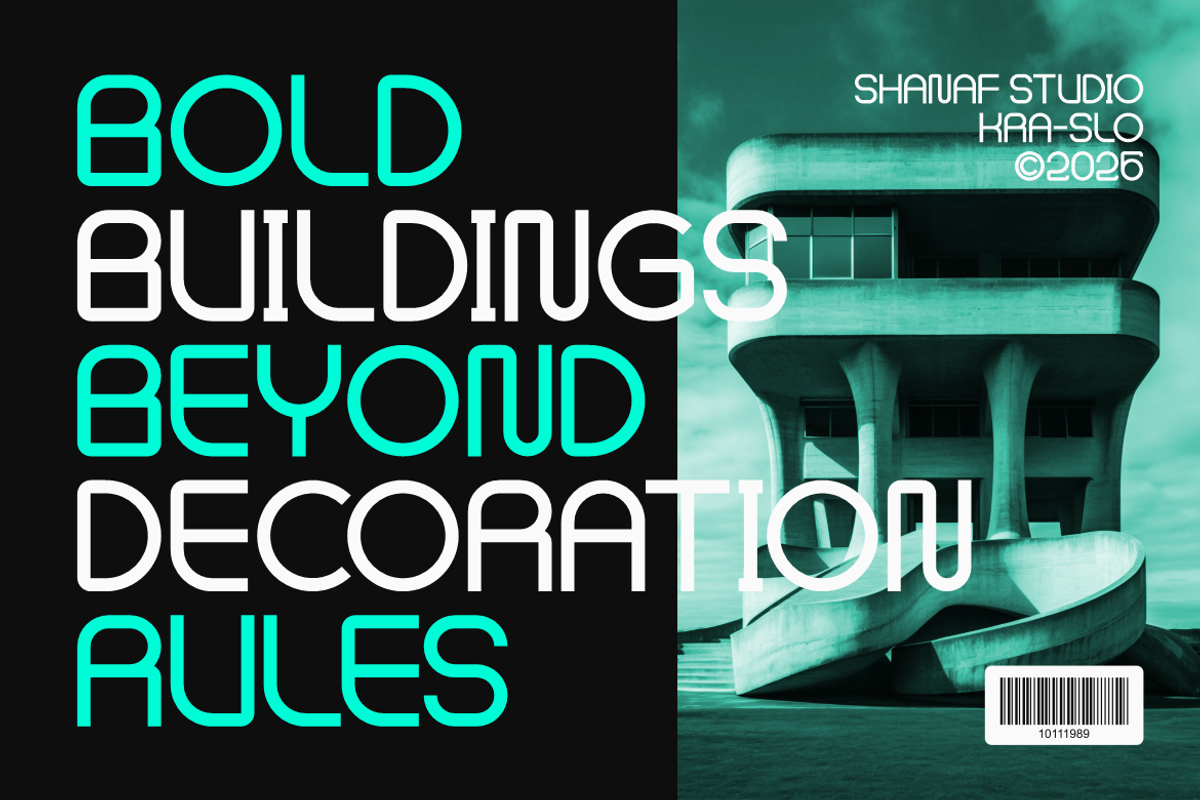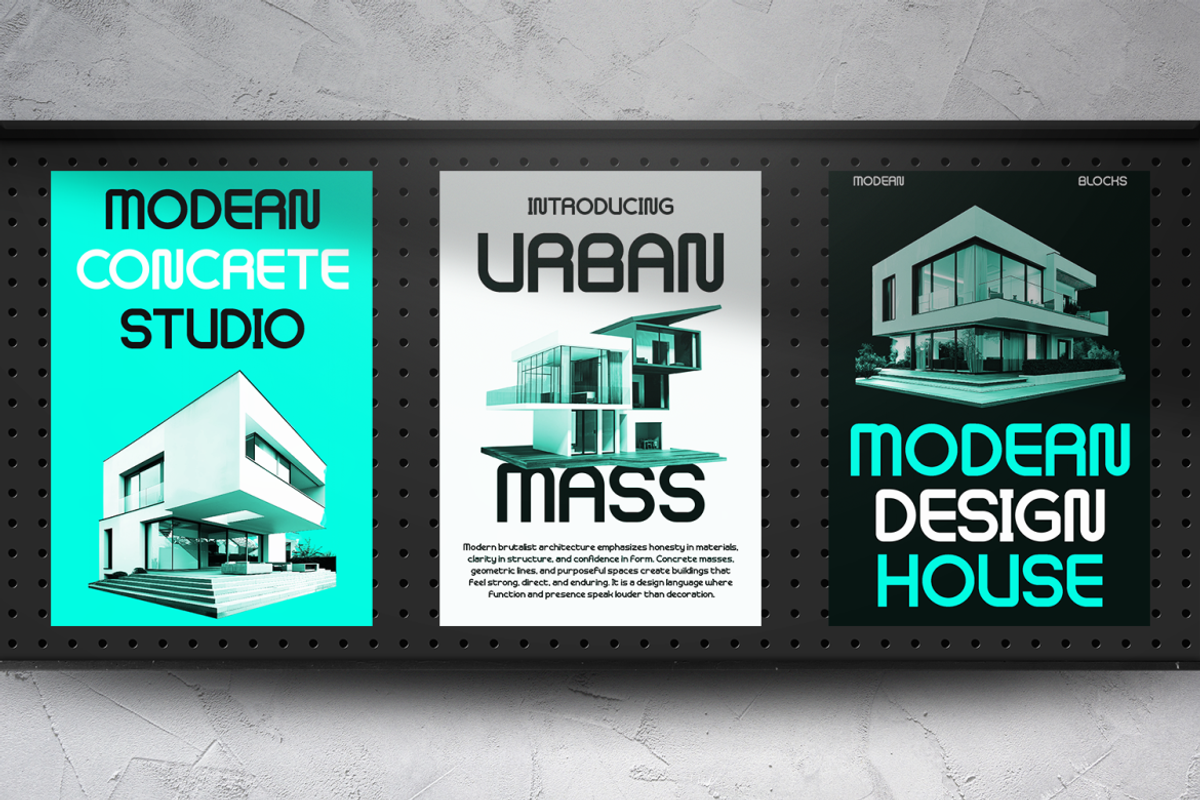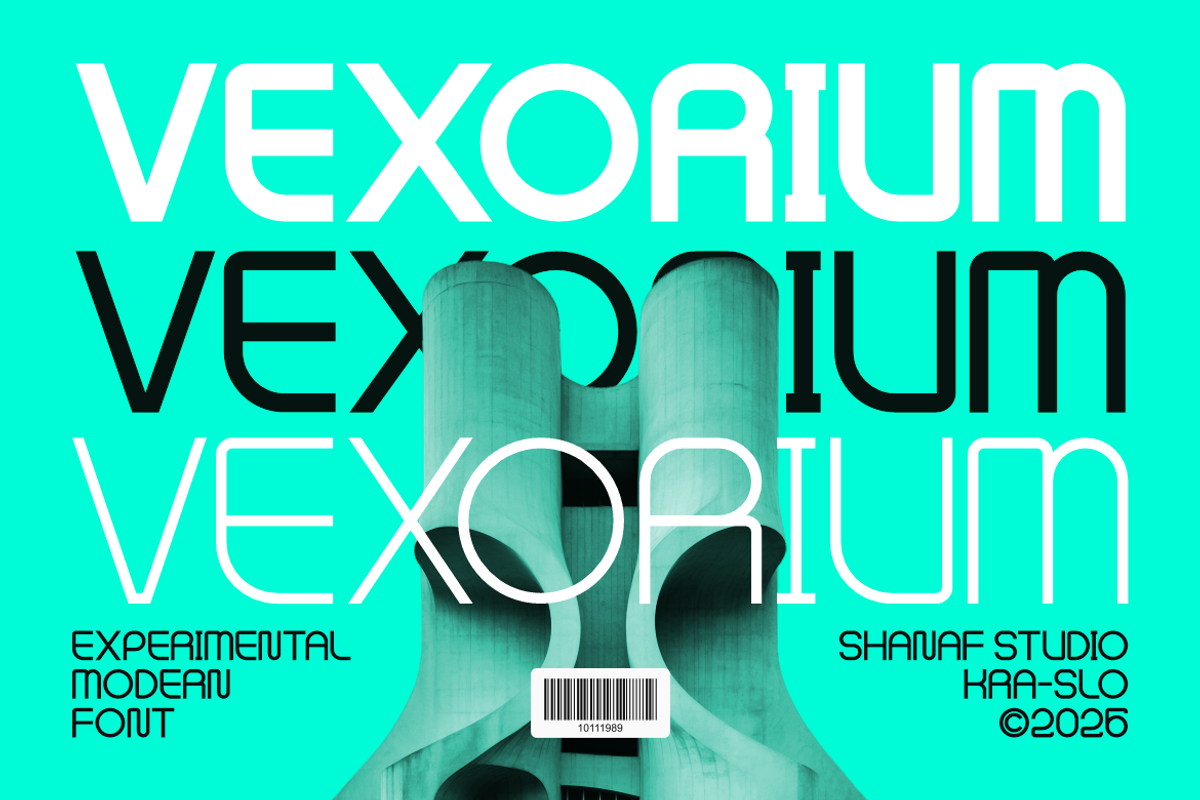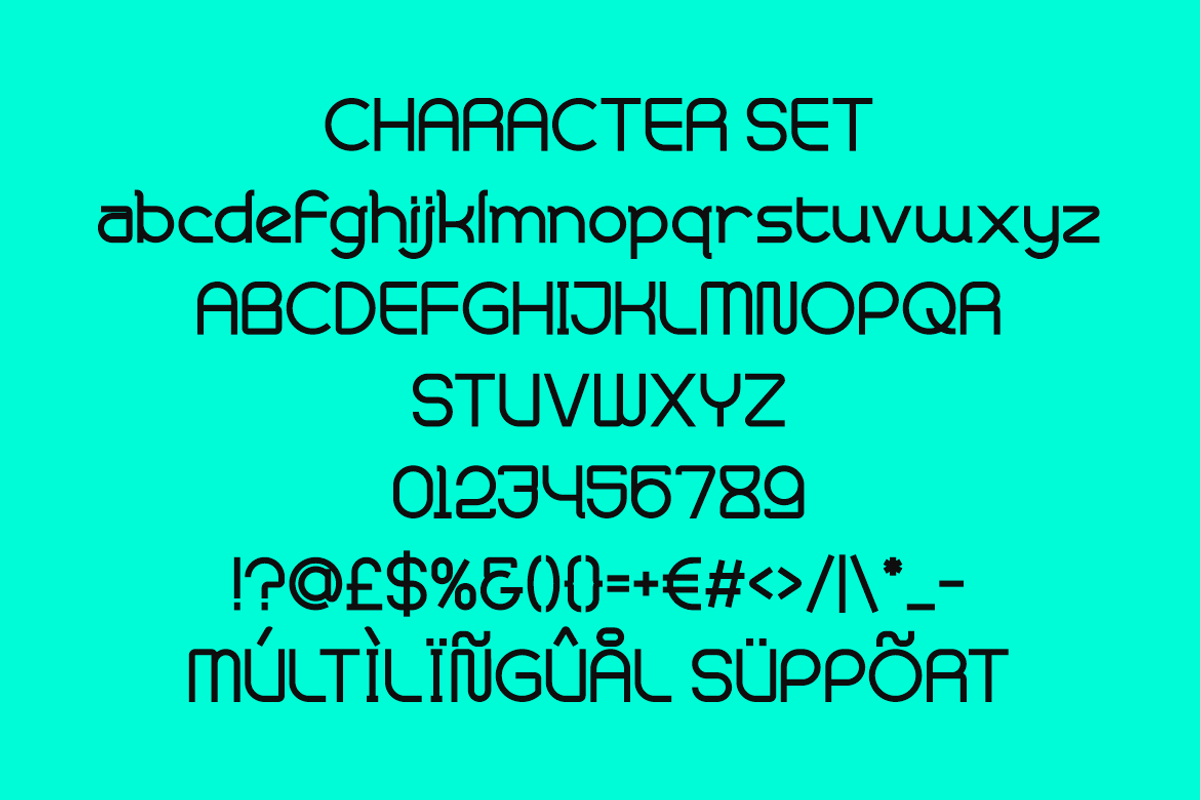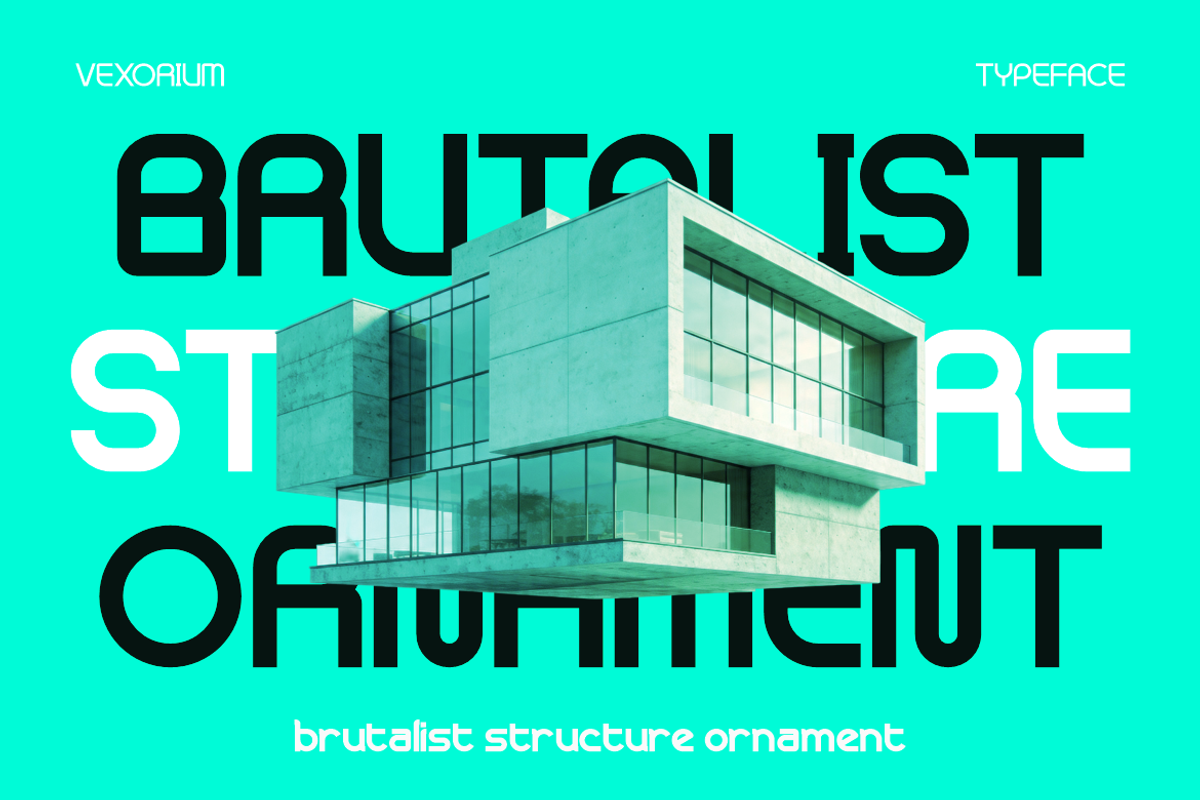
Vexorium Modern Experimental Font
Vexorium Modern Experimental Font combines architectural precision with experimental character construction. The letterforms feature a tall proportion, consistent stroke weight, rounded corners, geometric curves, and carefully balanced spacing. Several characters introduce unconventional structural details that create a futuristic personality without sacrificing readability. The design feels clean, calculated, and progressive. Its streamlined construction reflects the visual language of contemporary architecture, urban development, industrial design, and forward-thinking branding. The font creates a strong visual presence for logos, headlines, posters, advertising campaigns, magazine covers, packaging, business presentations, signage, invitations, greeting cards, book covers, stickers, and creative publications. Vexorium Modern Experimental Font works especially well when a brand needs a refined yet distinctive identity. The geometric framework communicates confidence and innovation, while the experimental details add originality and memorability. This balance allows designers to create branding systems that feel professional, modern, and relevant across digital and print applications. The font performs effectively at large display sizes where its architectural character and unique letter construction can fully stand out.
This typeface suits a broad range of industries connected to design, innovation, technology, and urban culture. It is ideal for architecture firms, interior design studios, property developers, real estate agencies, construction consultants, urban planning companies, furniture brands, home decor businesses, creative agencies, design exhibitions, and architectural publications. Beyond architecture, it also supports technology startups, digital products, software companies, engineering firms, innovation labs, smart home brands, luxury residences, residential projects, commercial developments, and contemporary lifestyle businesses. The clean structure helps establish trust, while the experimental forms communicate creativity and progress. It fits branding systems, corporate identities, project presentations, promotional materials, editorial layouts, event campaigns, and product launches. The font also works for conference graphics, design festivals, innovation events, portfolio websites, and creative showcases. Its architectural influence creates a sophisticated visual tone that helps brands appear visionary, organized, and future-focused while maintaining excellent recognition across multiple media platforms.